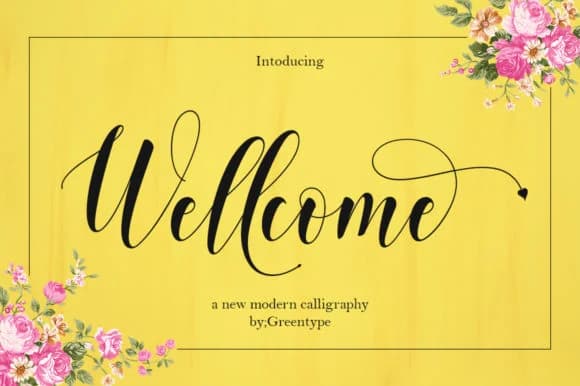
About Wellcome Font
The Wellcome is an elegant font with which you can achieve a handwritten-type lettering feeling.
Its signature style is perfect for modern graphic design needs. It has a nice flow so its perfect for adding a personal touch to long texts.
Wellcome Font is a script font that shines as a display or heading face. Pair it with a clean sans-serif or serif font for body text β the contrast creates a clear hierarchy while the two styles stay balanced and easy to read.
Wellcome Font
by Greentype